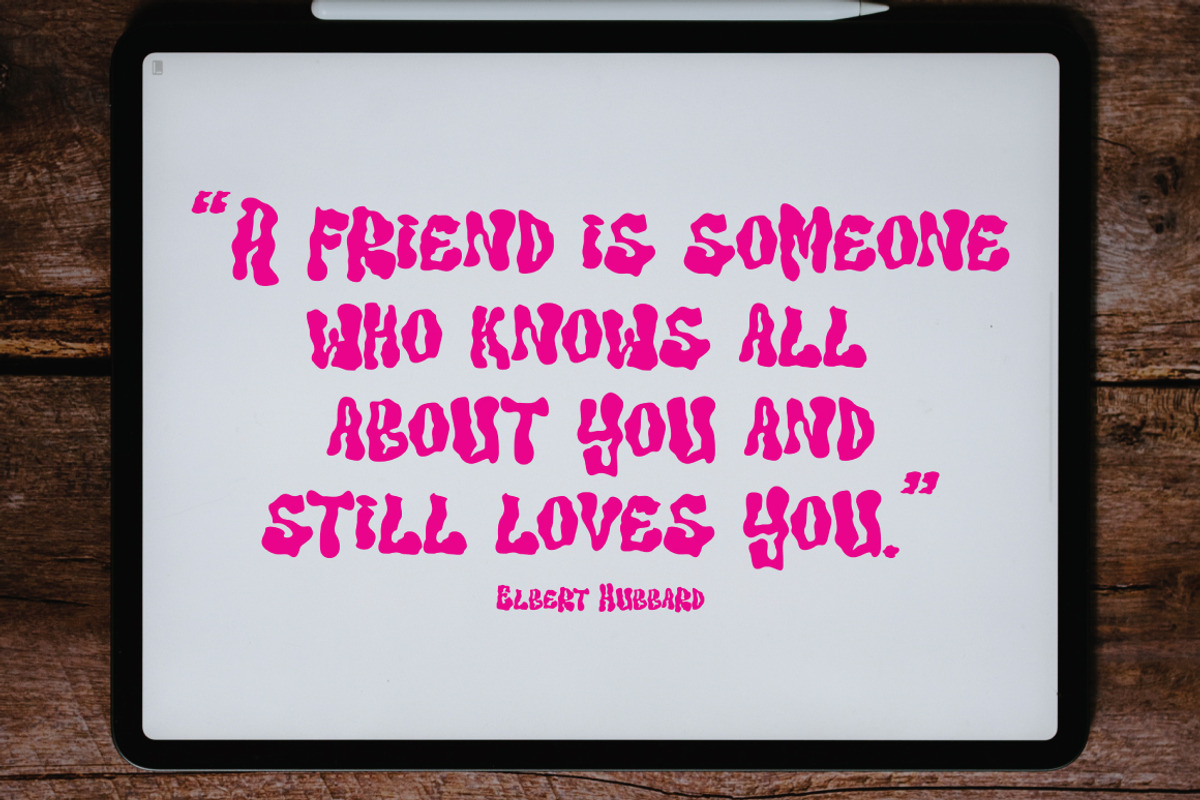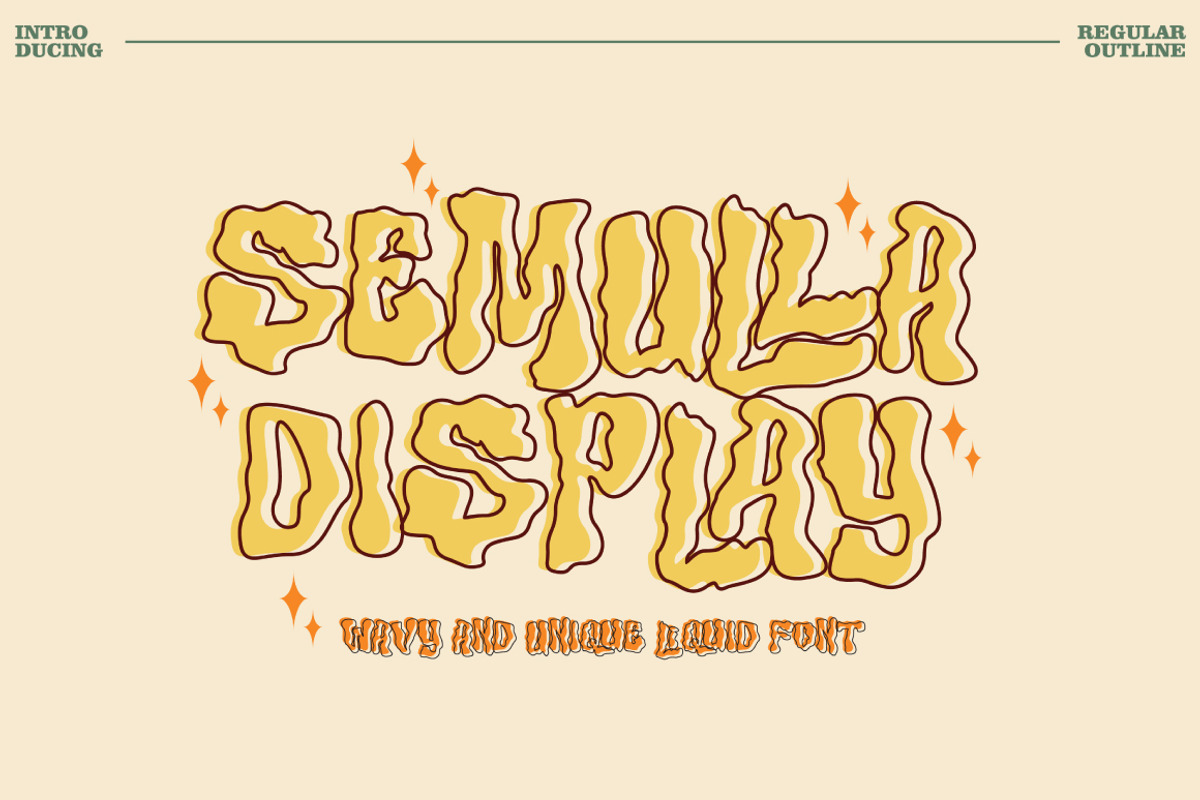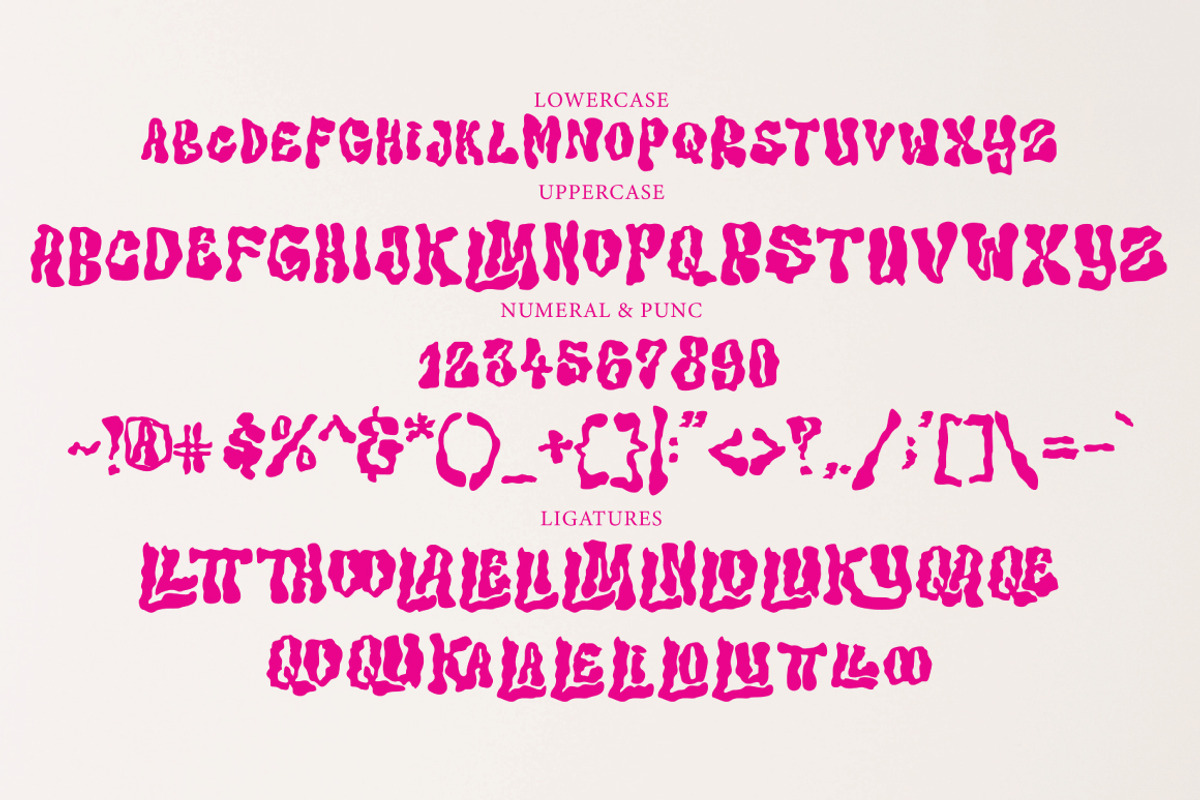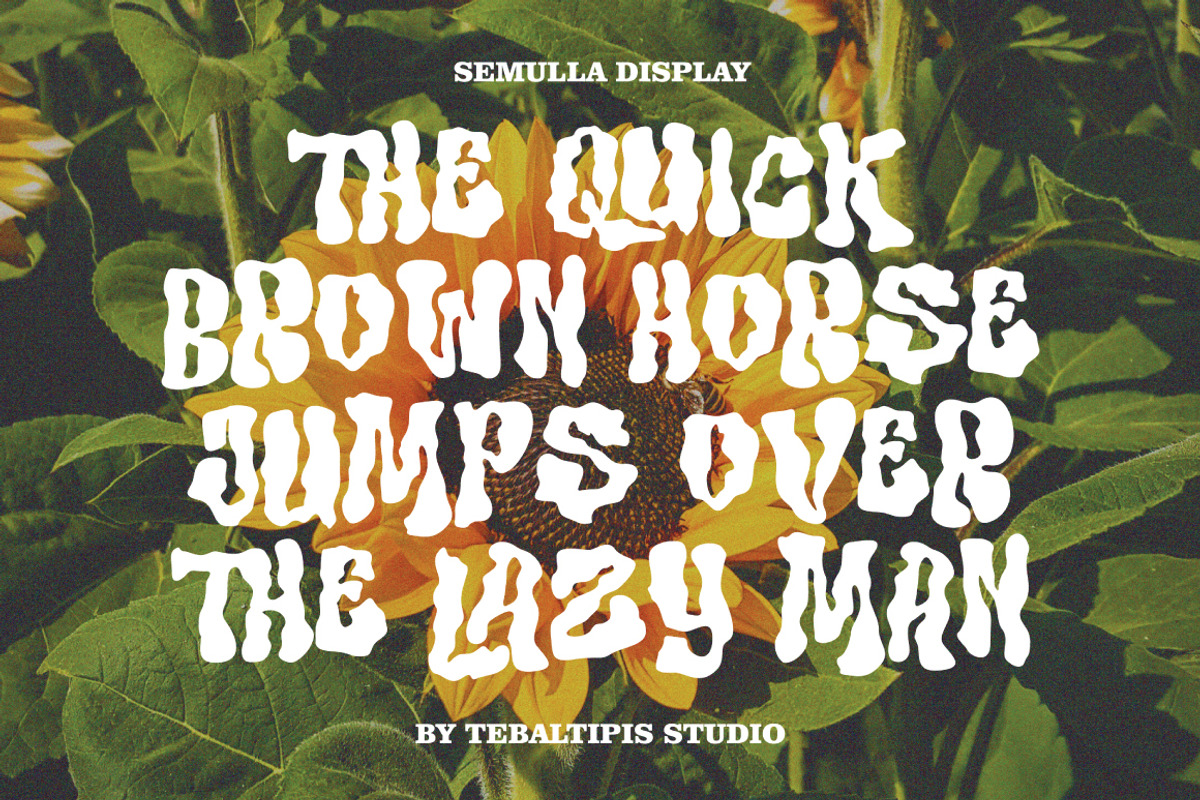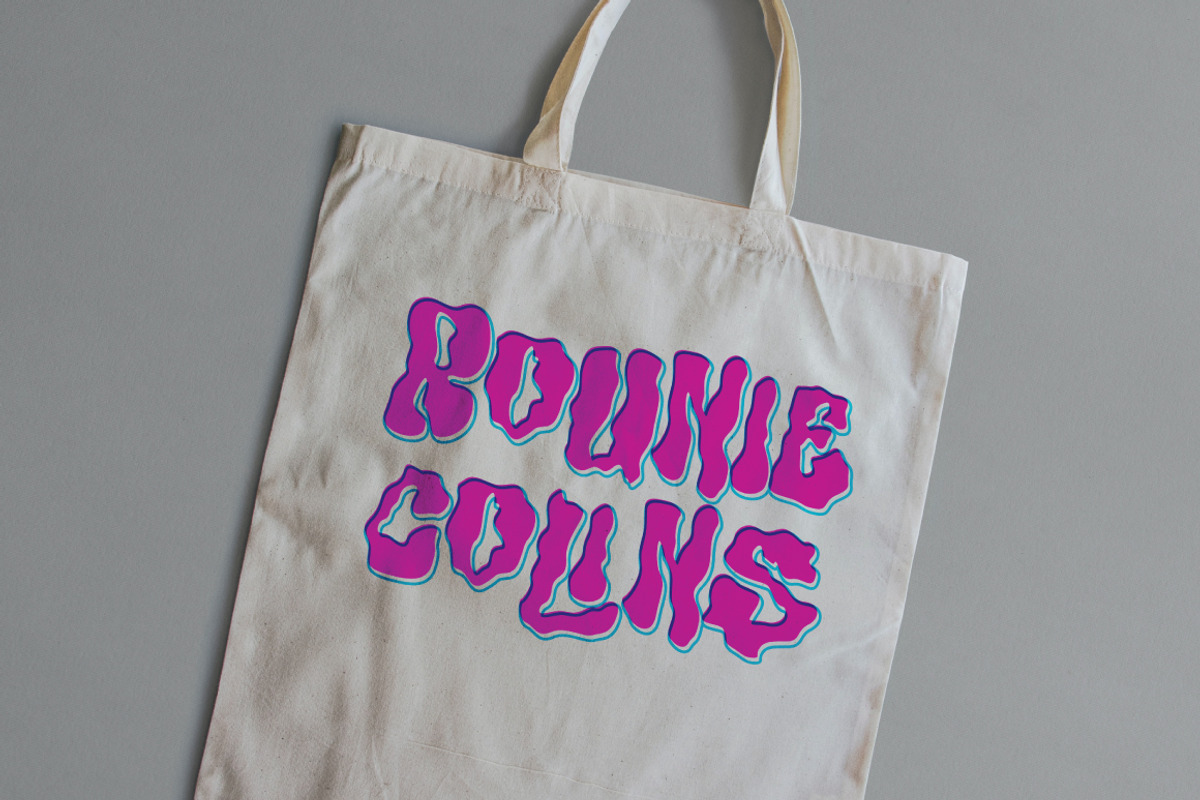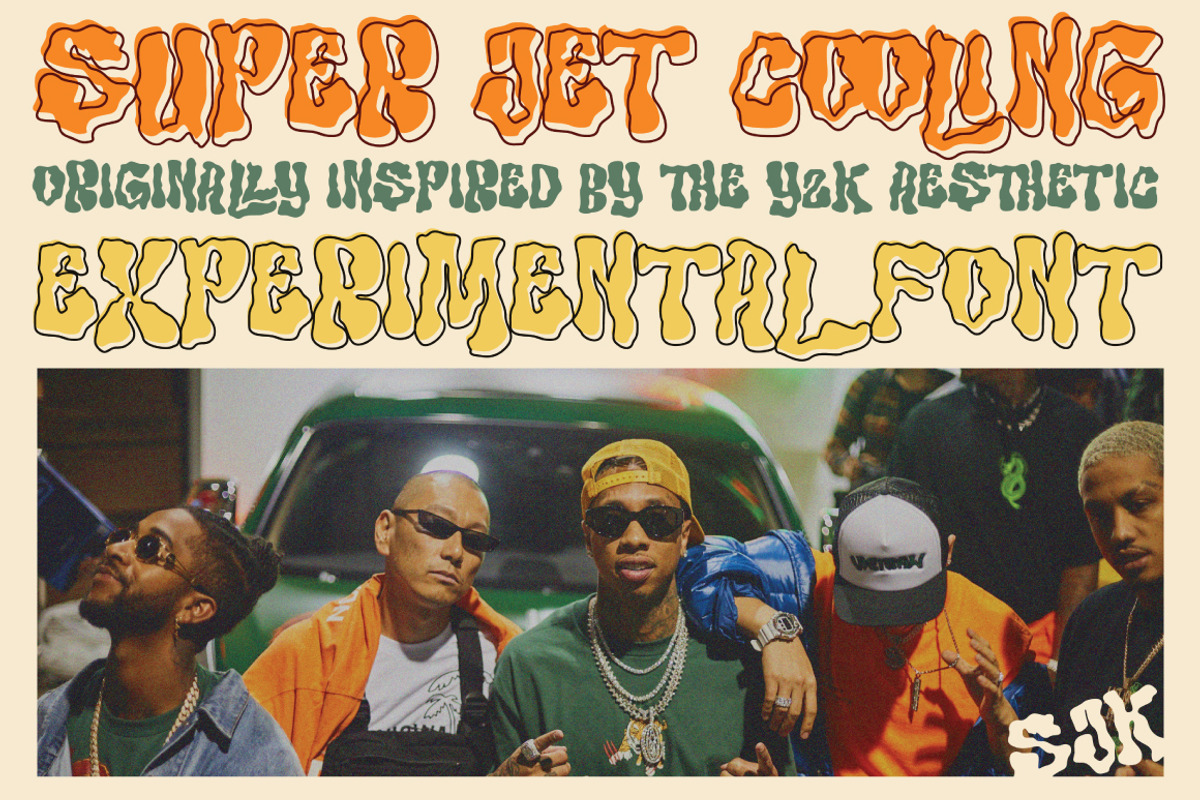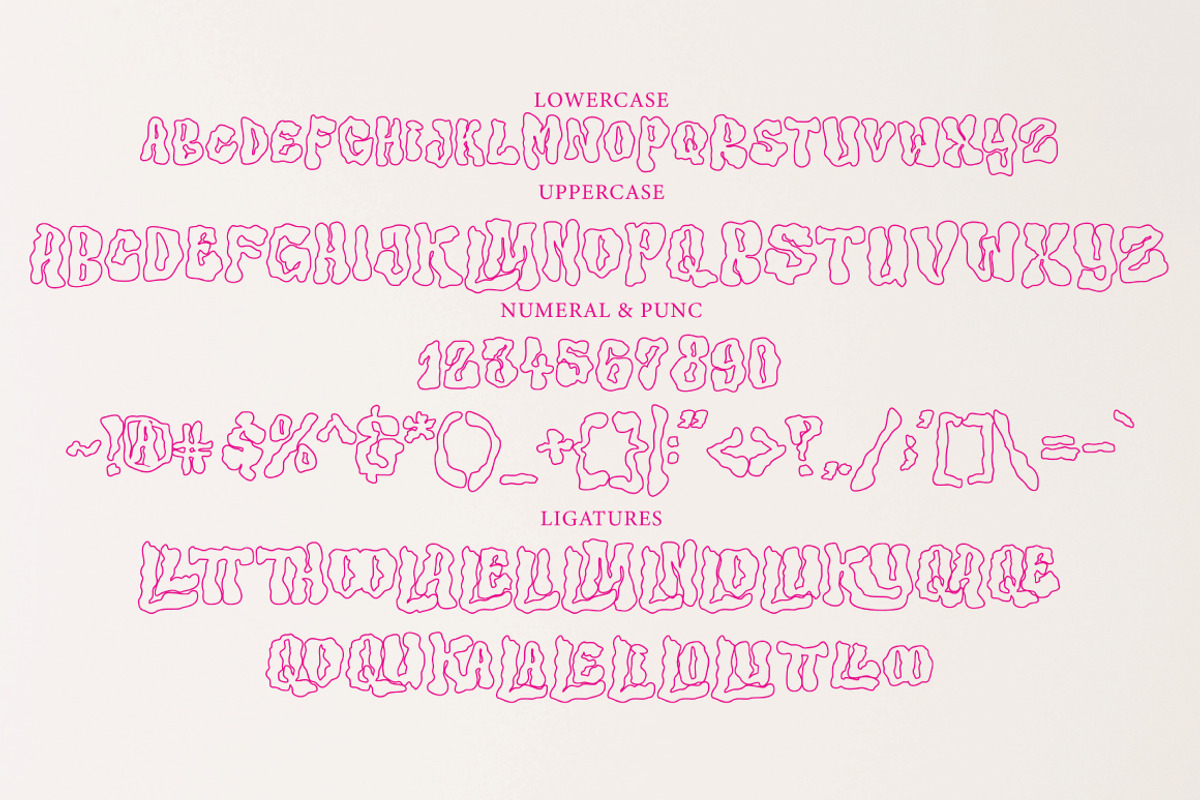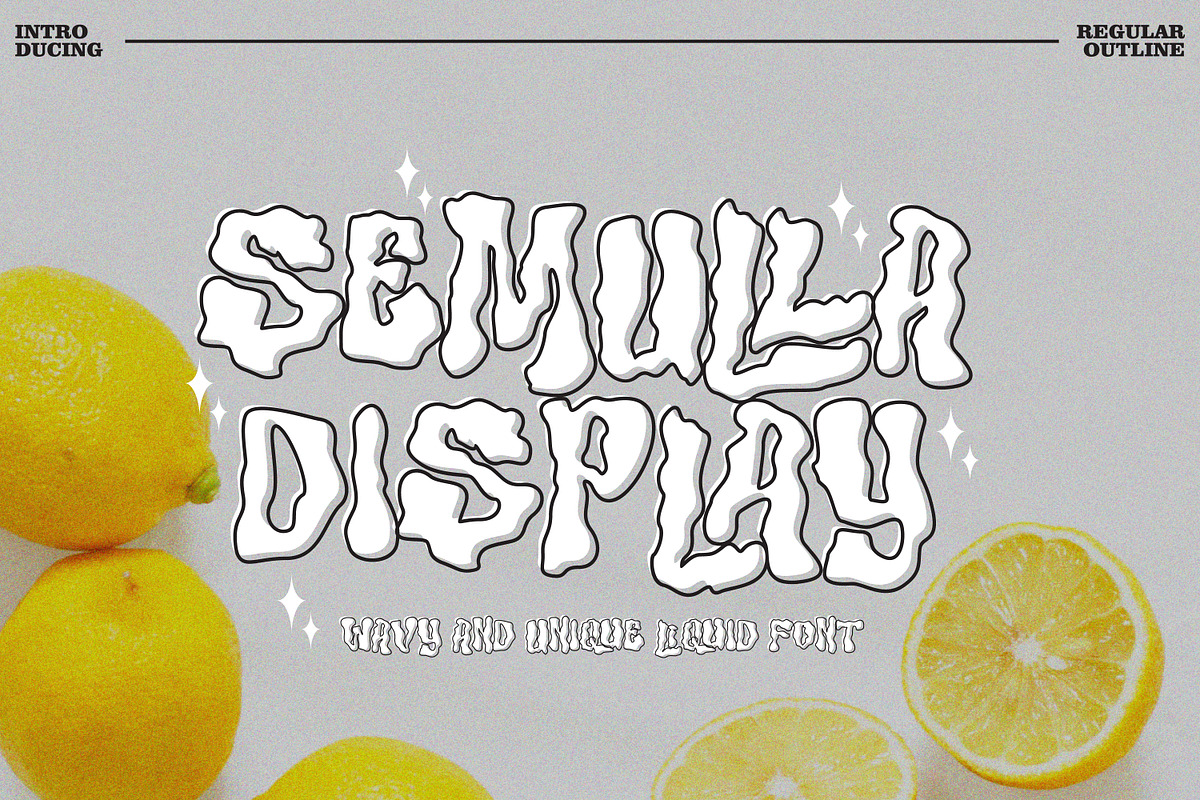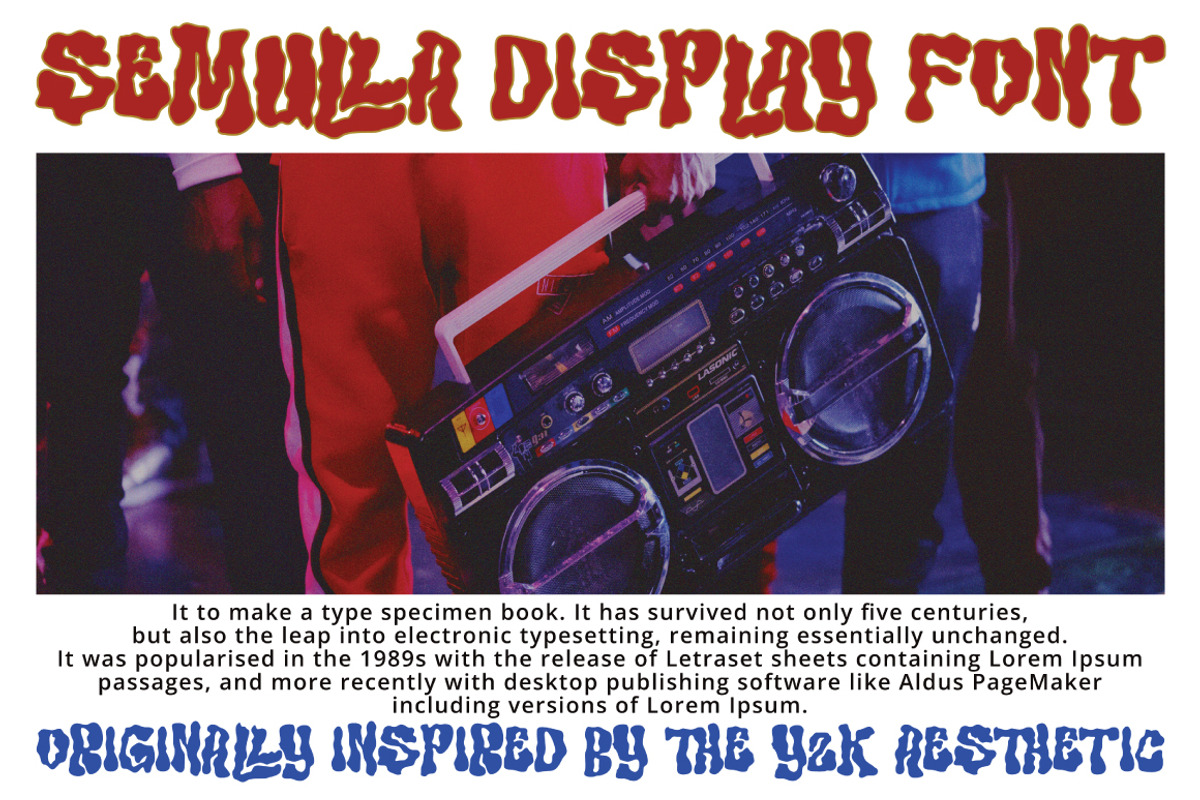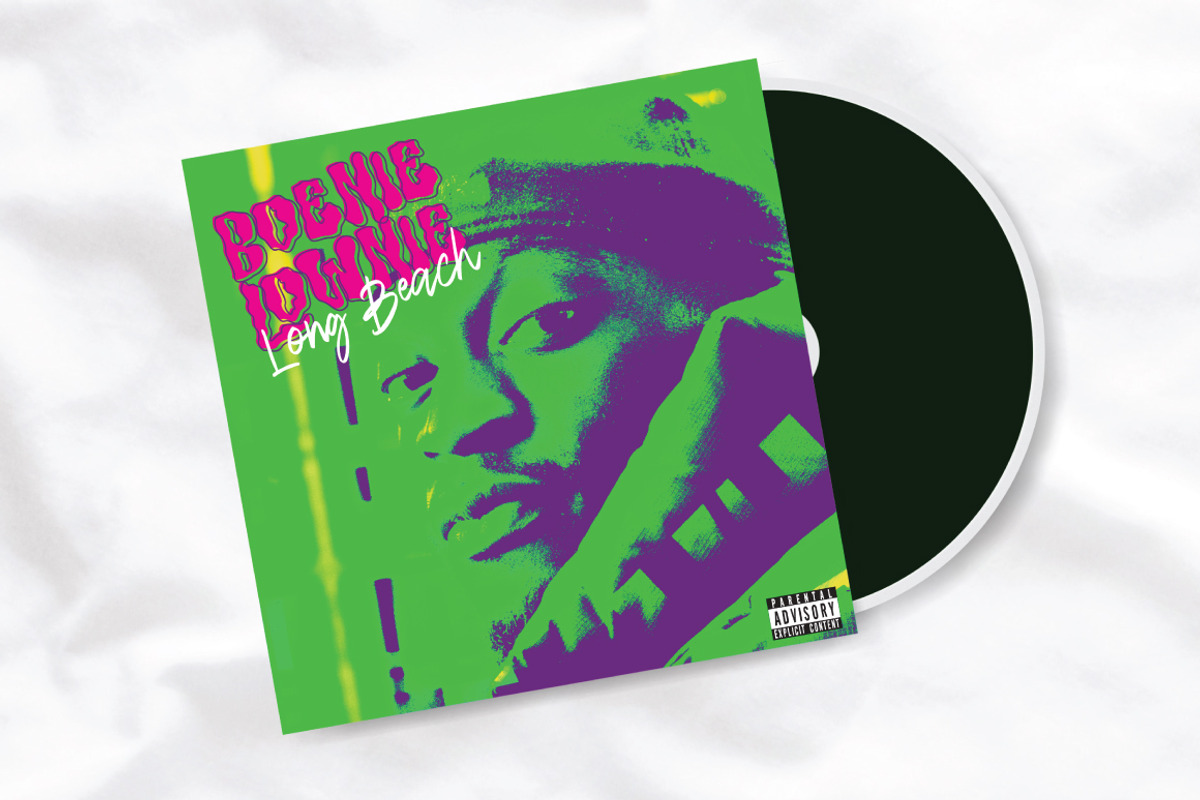
Semulla - Trippy Liquid Font
Semulla is a wobbly, funky, groovy hand-drawn font, originally inspired by the Y2K aesthetic. It comes in 2 styles, suitable for posters, logos, t-shirts, flyers, prints, and other branding materials. Perfect fit for your personal or commercial projects.
- 2 Styles Available